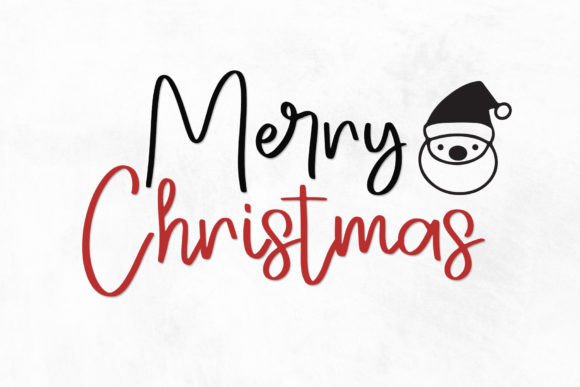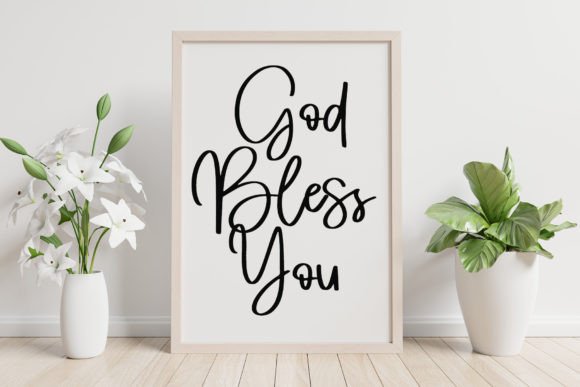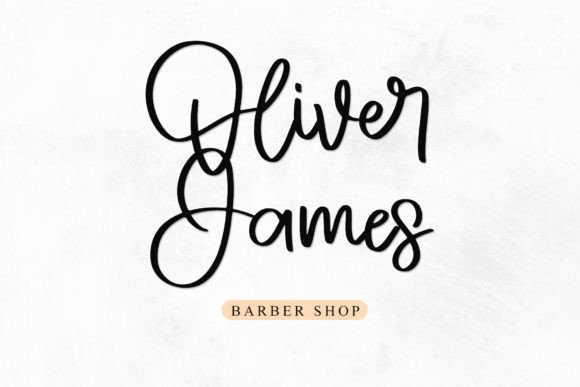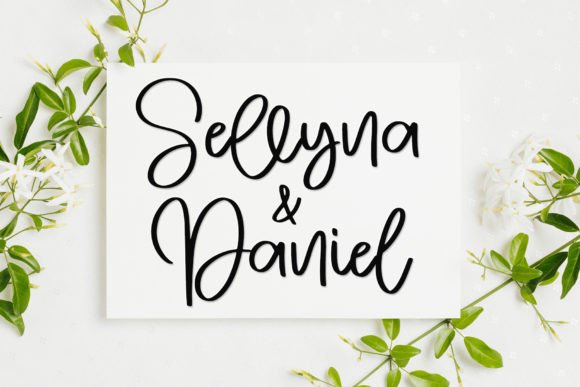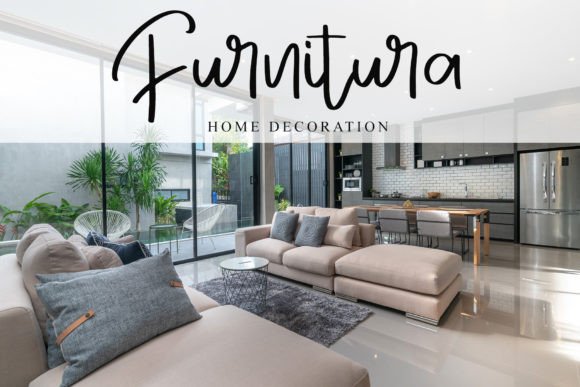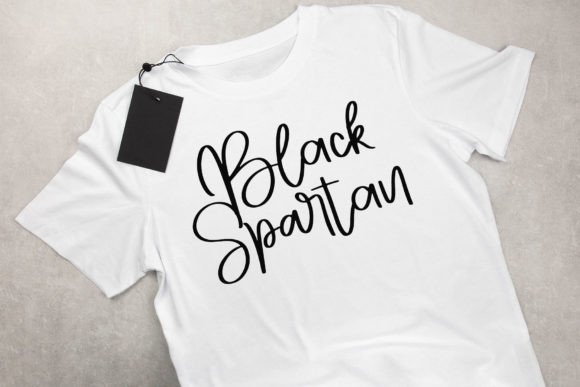
The Bestday Font: A Timeless Handwritten Treasure for Designers
Have you ever been in the middle of a design project, and suddenly, you’re stuck on finding the perfect font? I recall a recent experience where a client asked for a logo that exuded warmth and personality. After scouring through numerous font options, I stumbled upon Bestday – a lovely and timeless handwritten font that instantly captured the essence of what I was looking for.
A Personal Review of Bestday Font
As a designer, I’m always on the lookout for fonts that can elevate my projects. Bestday has quickly become a favorite, and here’s why:
- ✨ Unique and beautiful touch: Every letter in Bestday has a distinct character, making it perfect for creating eye-catching logos, branding, and quotes.
- ✅ Timeless appeal: The font’s classic handwritten style ensures it won’t go out of fashion anytime soon.
- ✅ Versatility: Bestday can be used for a wide range of design projects, from elegant branding to playful crafts.
While Bestday is an excellent font, it’s not without its quirks:
- 🤔 Occasional kerning issues: As with any font, you might encounter some kerning issues, but these can usually be easily adjusted.
- Experiment with OpenType features, such as stylistic alternates, to add variety to your text.
- Explore the font’s glyphs and OpenType features to create stunning designs.
The Story Behind Bestday Font
Bestday was created with the intention of capturing the essence of handwritten typography. The designer aimed to create a font that would evoke a sense of warmth and personality, perfect for designs that require a human touch. The result is a timeless font that can be used in a variety of contexts.
| Font Name | Bestday Font |
| Author | Letterafa Studio |
| What makes Bestday font unique? | Bestday’s unique and beautiful touch sets it apart from other fonts. Each letter has a distinct character, making it perfect for creating eye-catching designs. |
| Is Bestday suitable for body text? | While Bestday is a beautiful font, it’s best suited for headings and titles. For body text, a more traditional font might be more readable. |